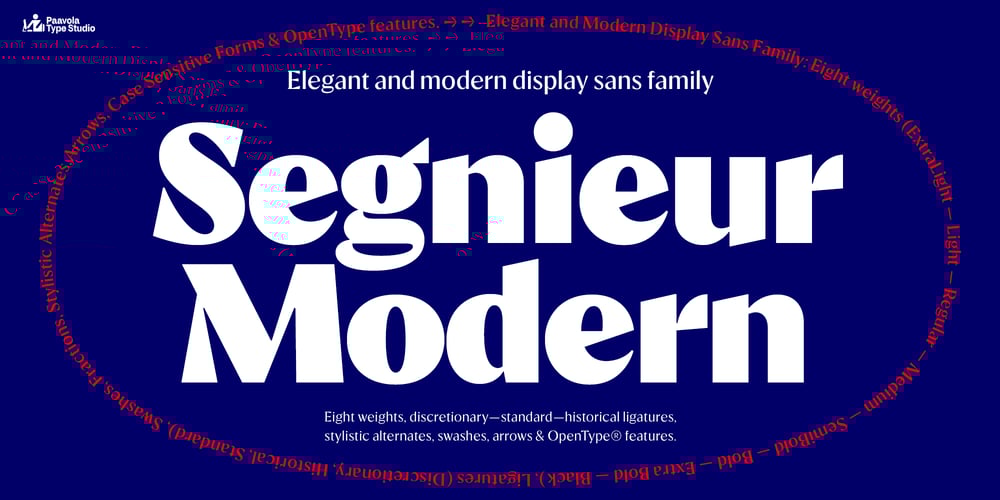
Segnieur Modern Font Family was designed by Jani Paavola and published by Paavola Type Studio. Segnieur Modern contains 16 styles and family package options. Segnieur Modern is a modern sans-serif font that redefines elegance in the digital age. Its precise geometry, distinctive letterforms, and versatility make it an excellent choice for designers seeking a font that effortlessly combines modernity with timeless style. Elevate your projects with Segnieur Modern’s sleek and sophisticated aesthetic.Segnieur Modern is highly versatile, making it suitable for a wide array of design applications, including corporate branding, product branding, editorian design and advertising.Branding: Elevate your brand’s identity with a font that radiates professionalism and contemporary appeal.Editorial Design: Whether it’s magazines, brochures, or posters, this font enhances readability while maintaining a sleek appearance.Advertising: Make your advertisements stand out with a font that combines sophistication and readability.The font includes an extensive character set that covers multiple languages and special characters, ensuring global usability and versatility.